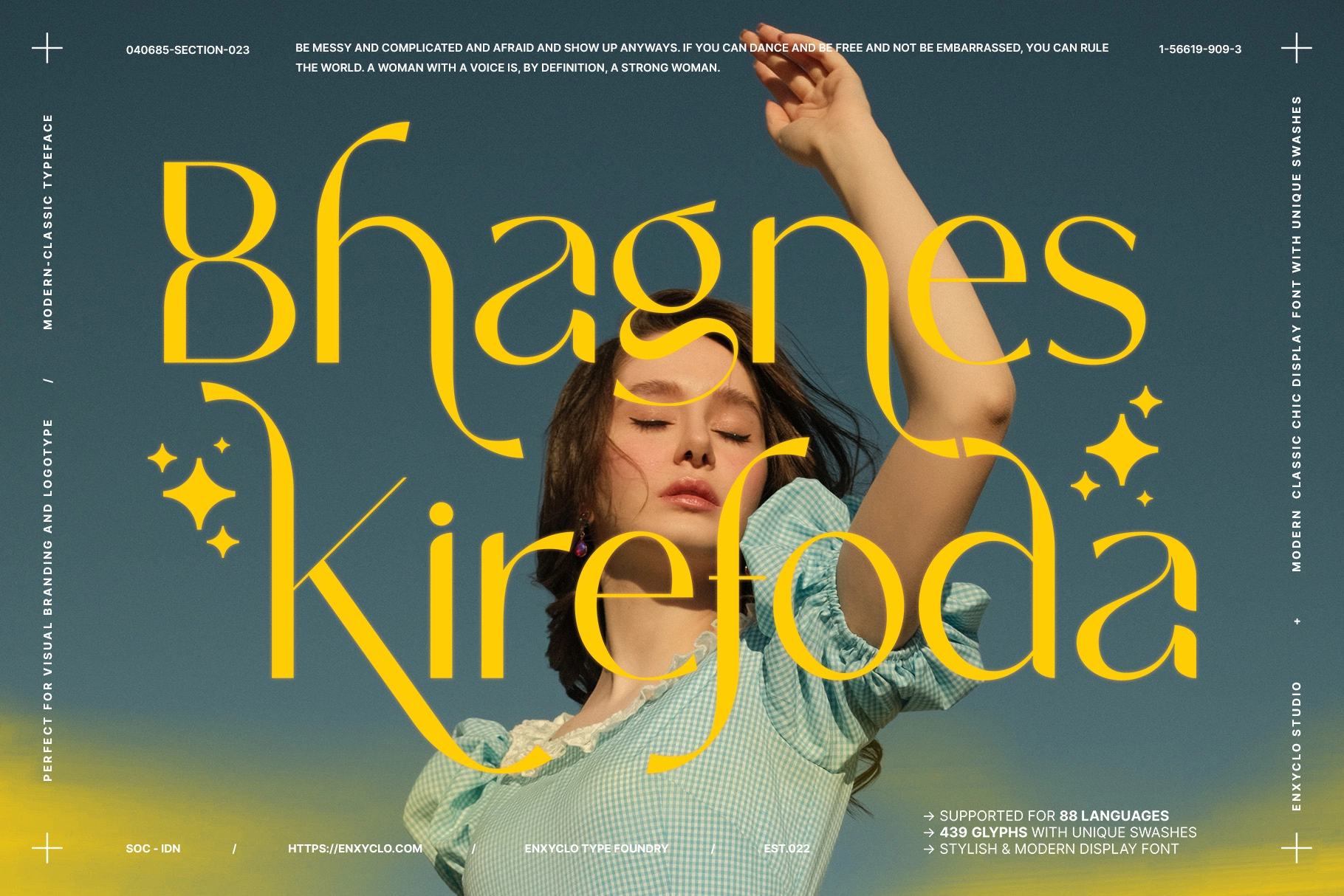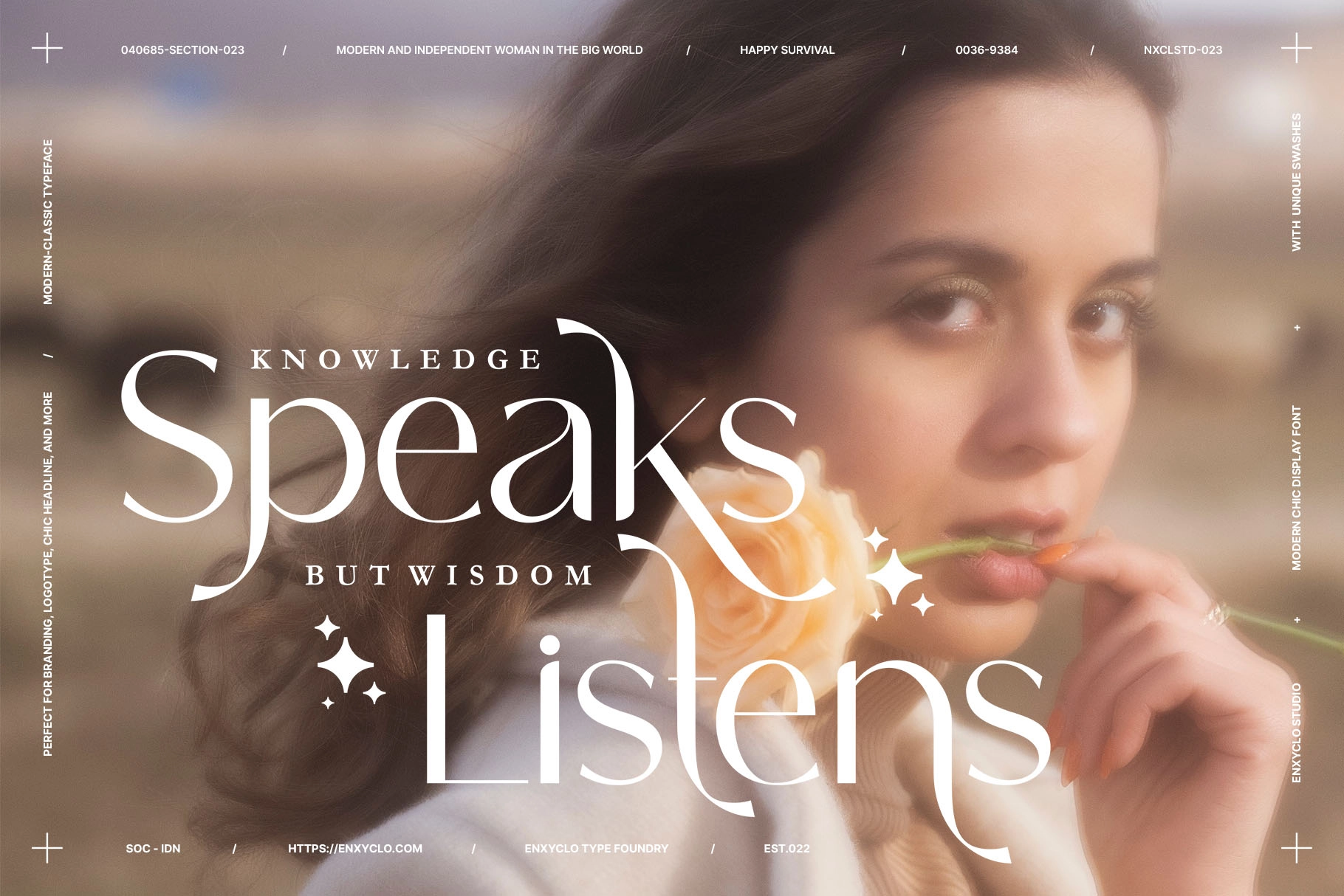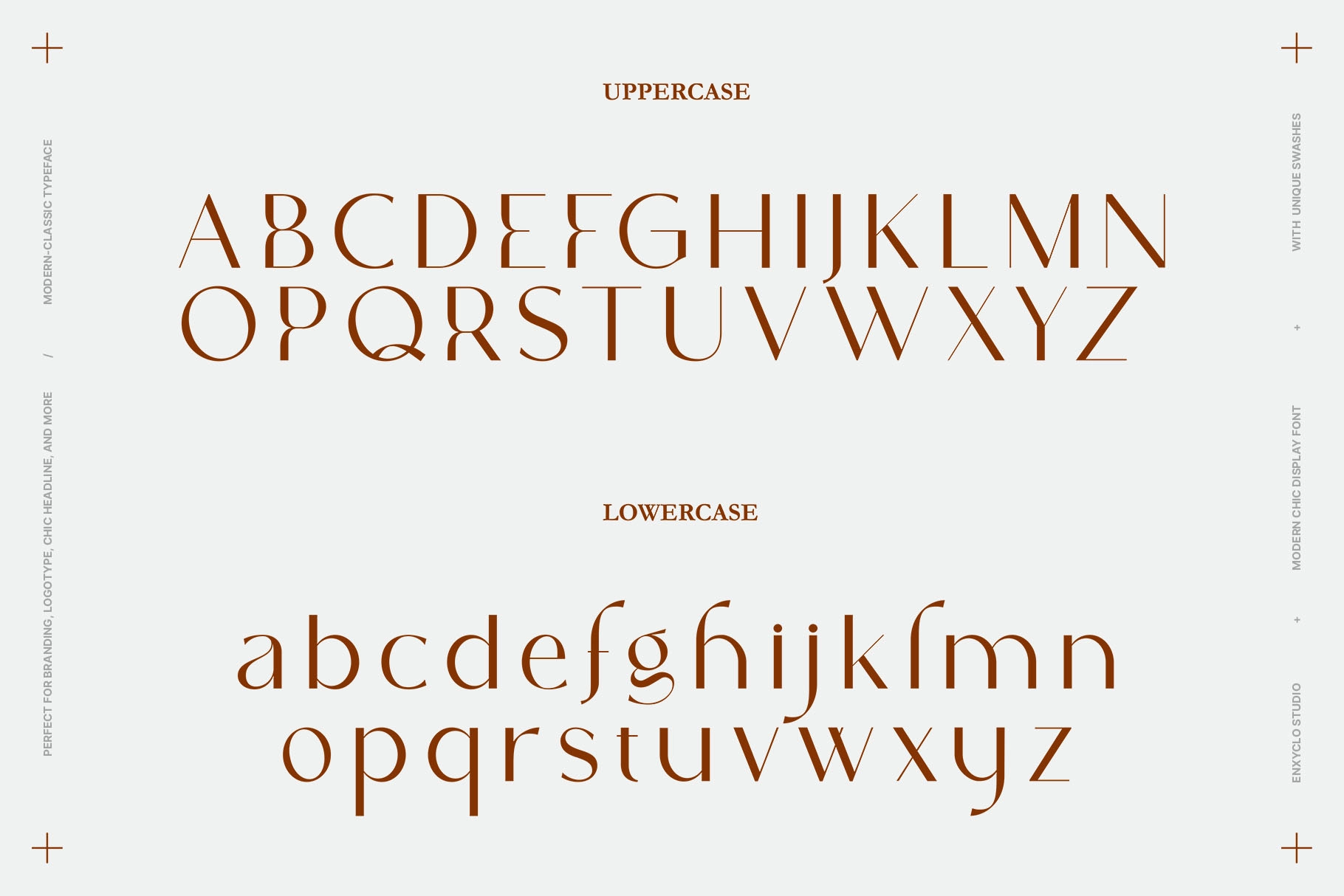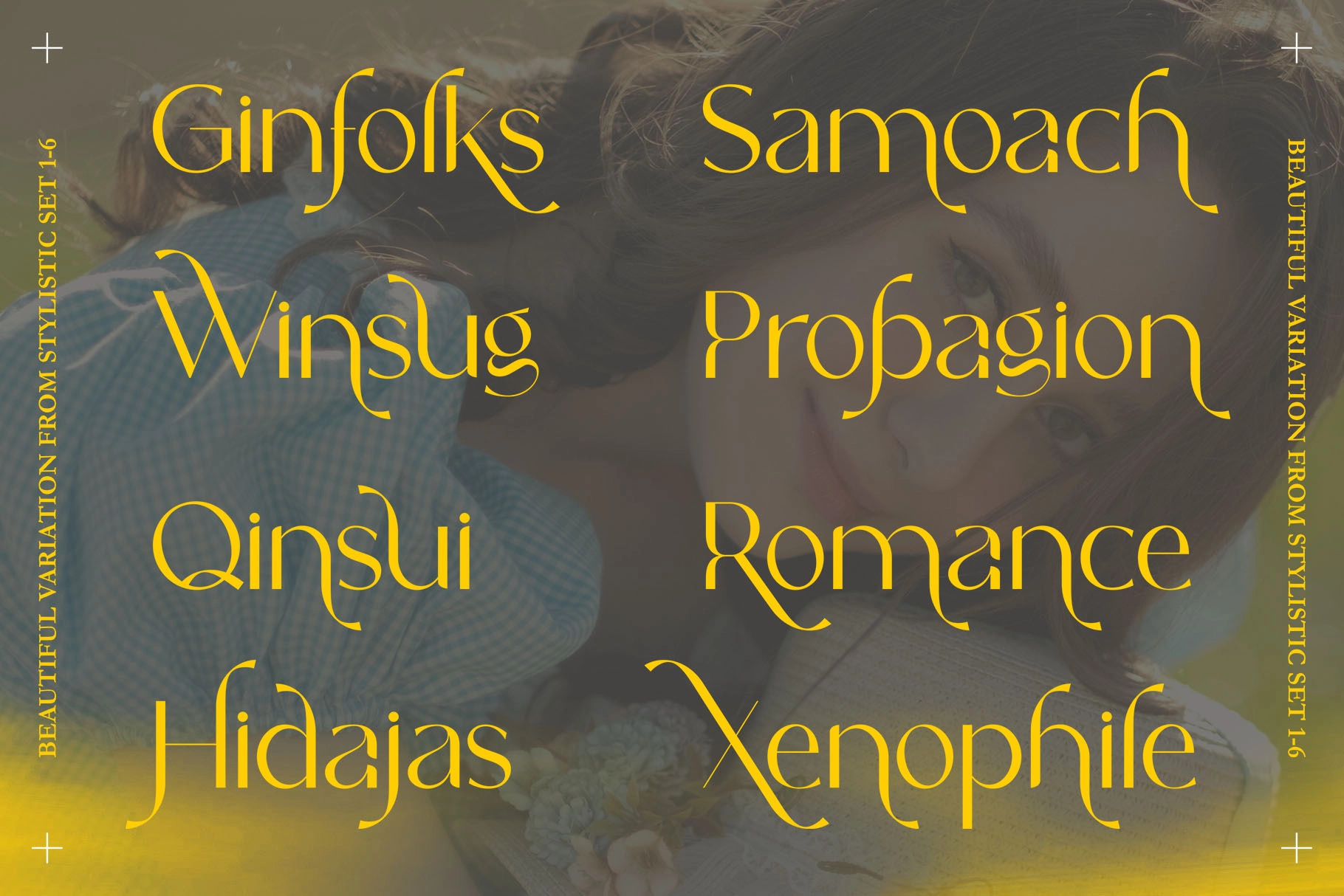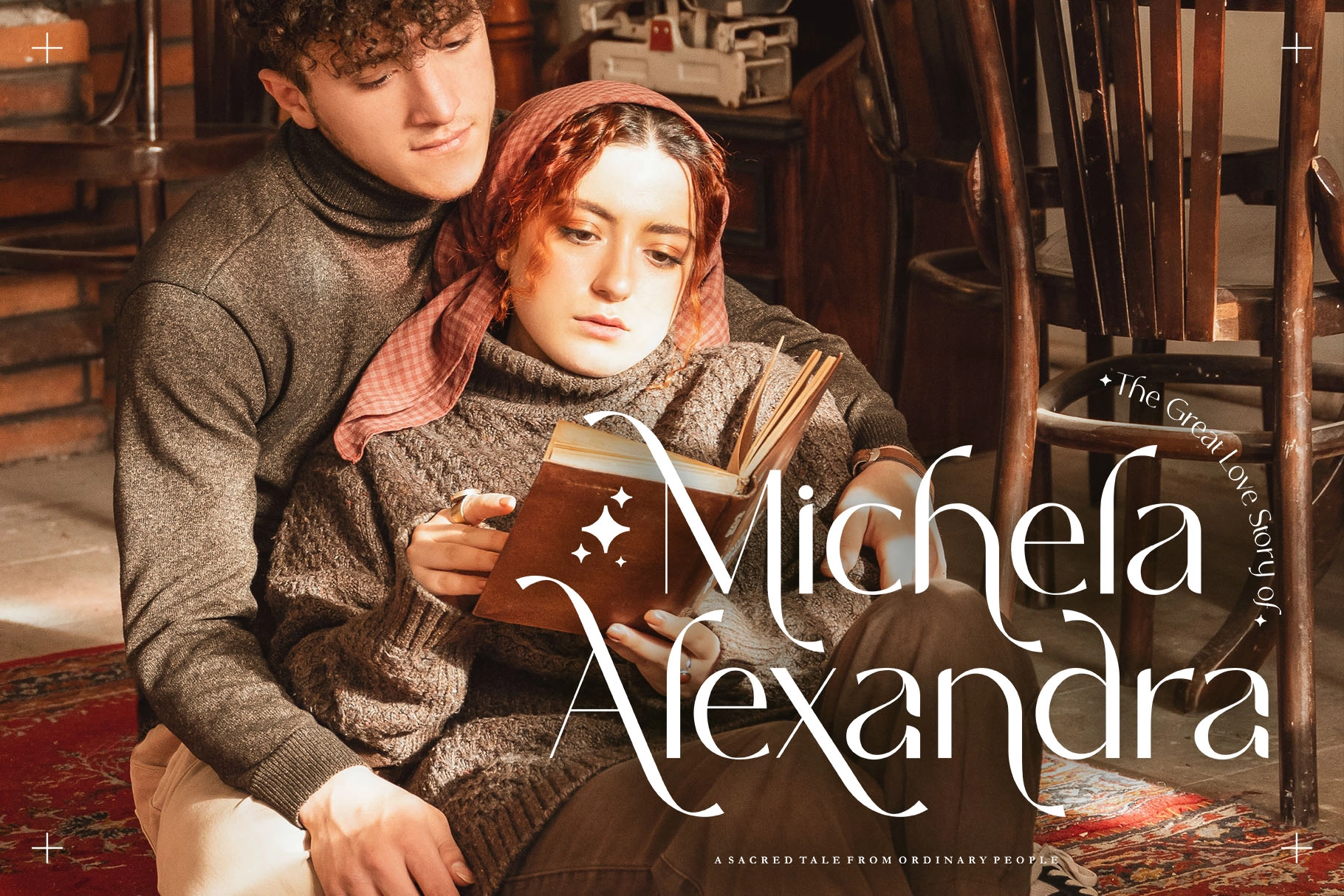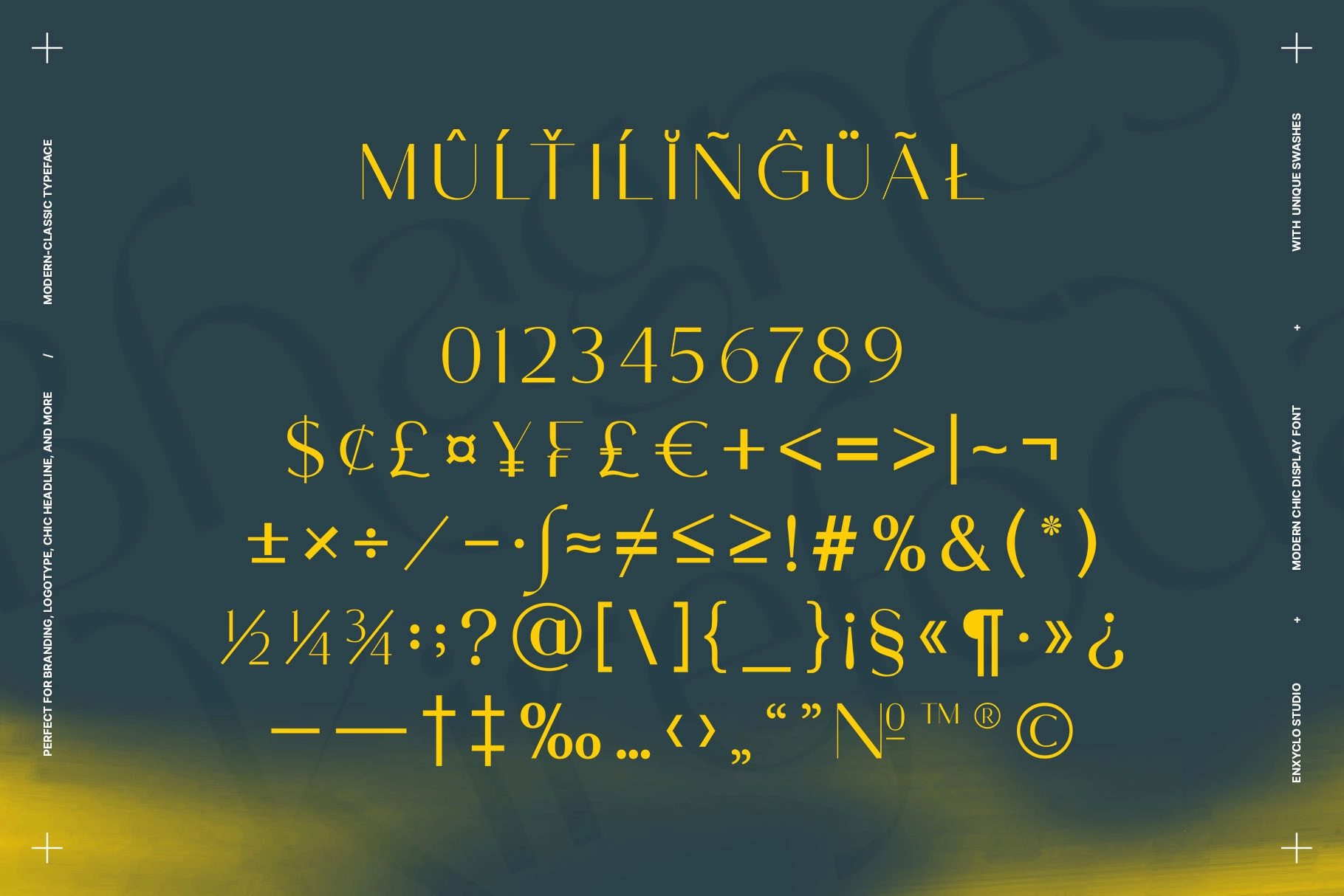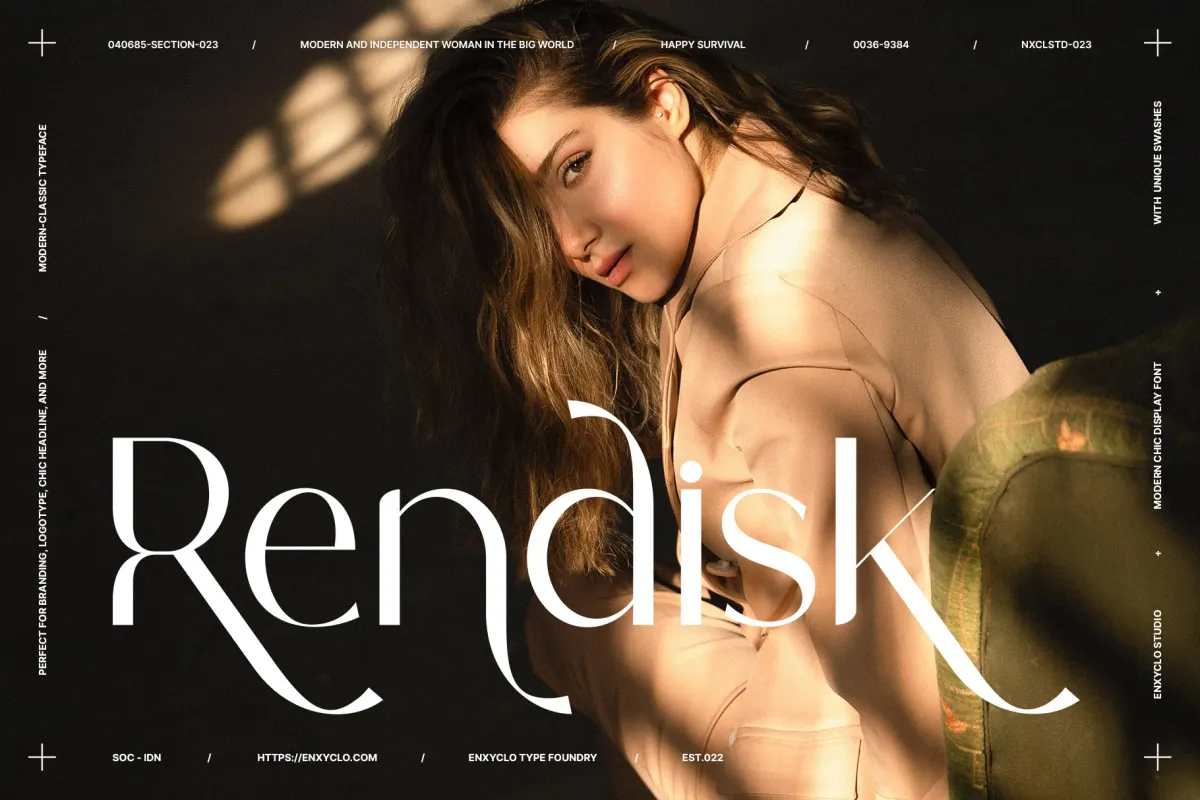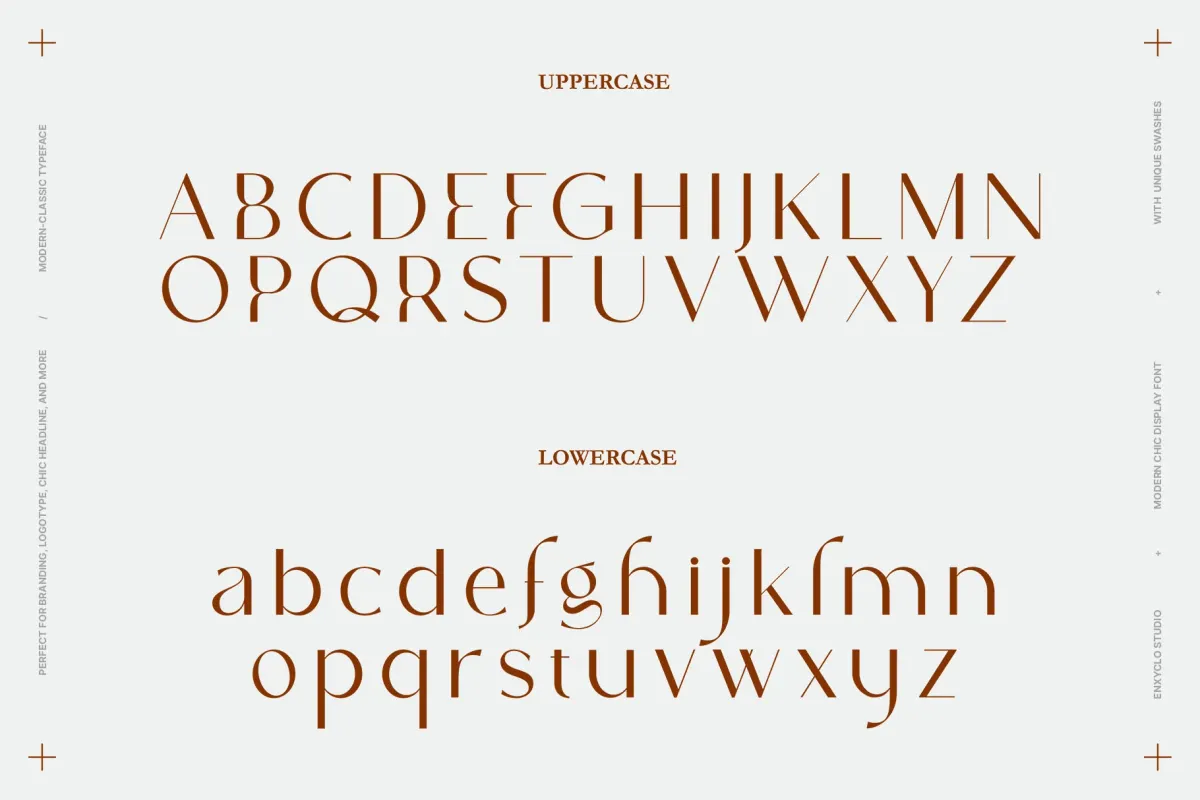
Bhagnes Kirefoda - Elegant Modern Serif Font
Bhagnes Kirefoda – Elegant Modern Serif Font is a sophisticated modern serif typeface designed to bring elegance, style, and distinctive character to contemporary typography. With refined letterforms, graceful proportions, and unique swashes, the font blends classic serif beauty with a modern chic aesthetic. Its expressive shapes create a luxurious visual presence, making it perfect for fashion-forward branding, editorial layouts, and high-end design projects.
Crafted for versatility and visual impact, Bhagnes Kirefoda performs beautifully in headlines, logos, magazines, posters, websites, and creative branding. The stylistic variations allow designers to create elegant typographic compositions with personality and flair, while the balanced structure ensures clarity even at smaller sizes. Whether used for sophisticated branding or stylish editorial design, this font adds a refined and memorable touch to any visual concept.
- Uppercase & Lowercase Letters
- Punctuation Marks
- Symbols & Currency Characters
- 439 Glyphs
- Stylistic Set 1–6
- Elegant Swashes & Alternates